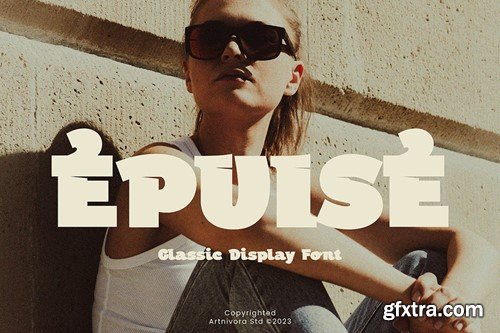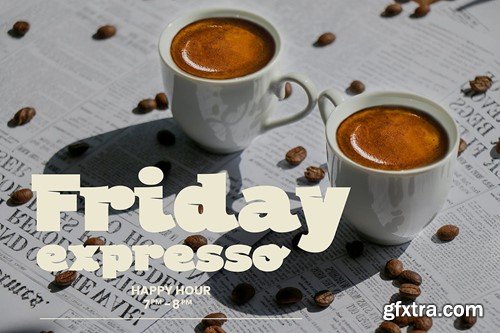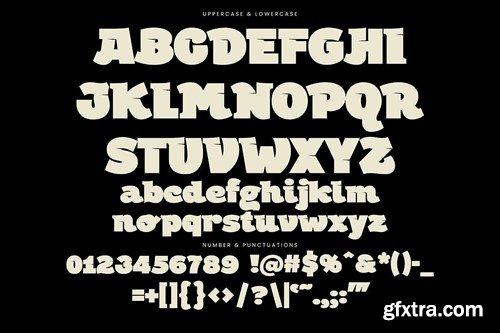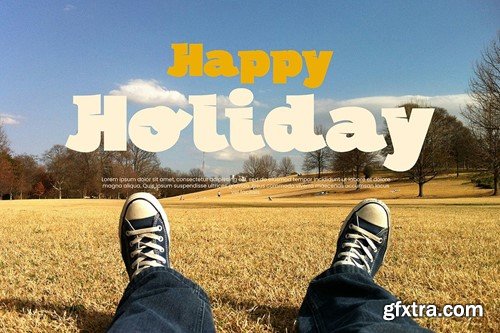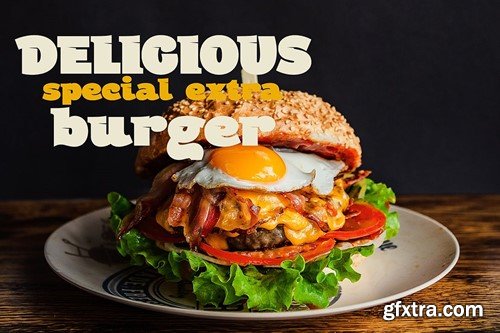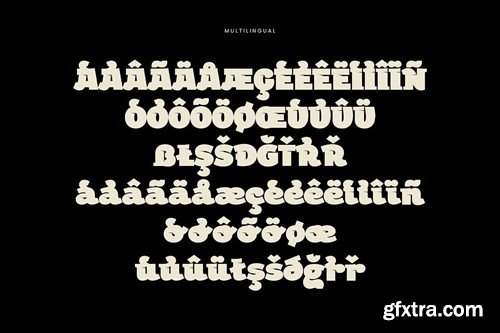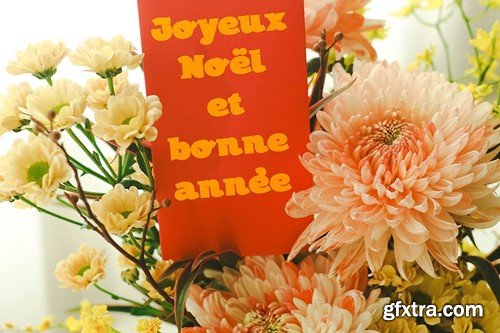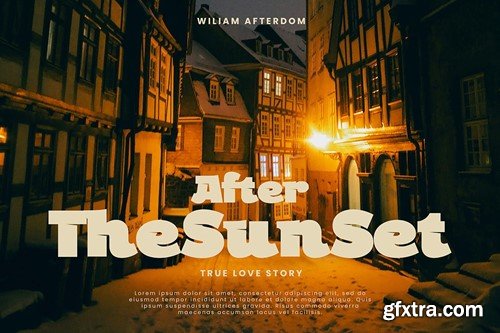
Epuise - Display Font
Introducing Epuise, a simple and display font. So perfect for you who needs a typeface for logo designs, magazine, social media, brochure, and many more.
Features
• Uppercase
• Lowercase
• Punctuation
• Numerals
• Multilingual Support